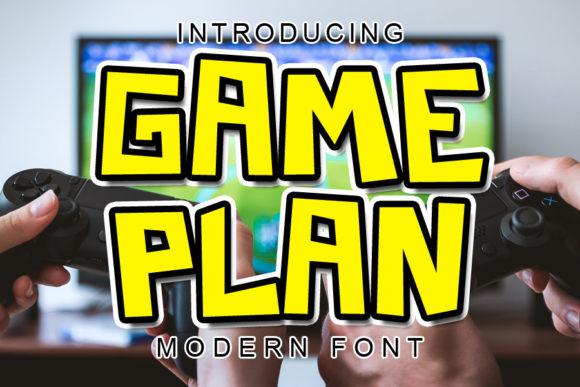
Introduce your little ones to the wonderful world of learning and creativity with Game Plan Font, a font family meticulously crafted to bring an element of joy and imagination to any children's project. Designed by the talented ABBAsalam, this display font exudes a playful and lighthearted charm that will capture the hearts of kids and adults alike.
Immerse yourself in the whimsical world of Game Plan Font, where letters are transformed into playful shapes and characters that come alive on the page. Perfect for school projects, classroom posters, and creative writing assignments, this font is a treasure trove of creative possibilities just waiting to be explored. Its childlike playfulness will spark imagination and inspire young minds to dream big and think outside the box.
Game Plan Font is not just a font; it's an invitation to embark on a creative adventure. With its charming personality and boundless versatility, this font is perfect for creating personalized greeting cards, party invitations, and fun and engaging presentations. Let your imagination run wild as you explore the endless possibilities that await you within the digital realm of Game Plan Font.